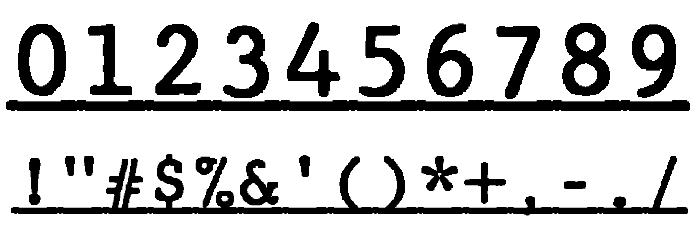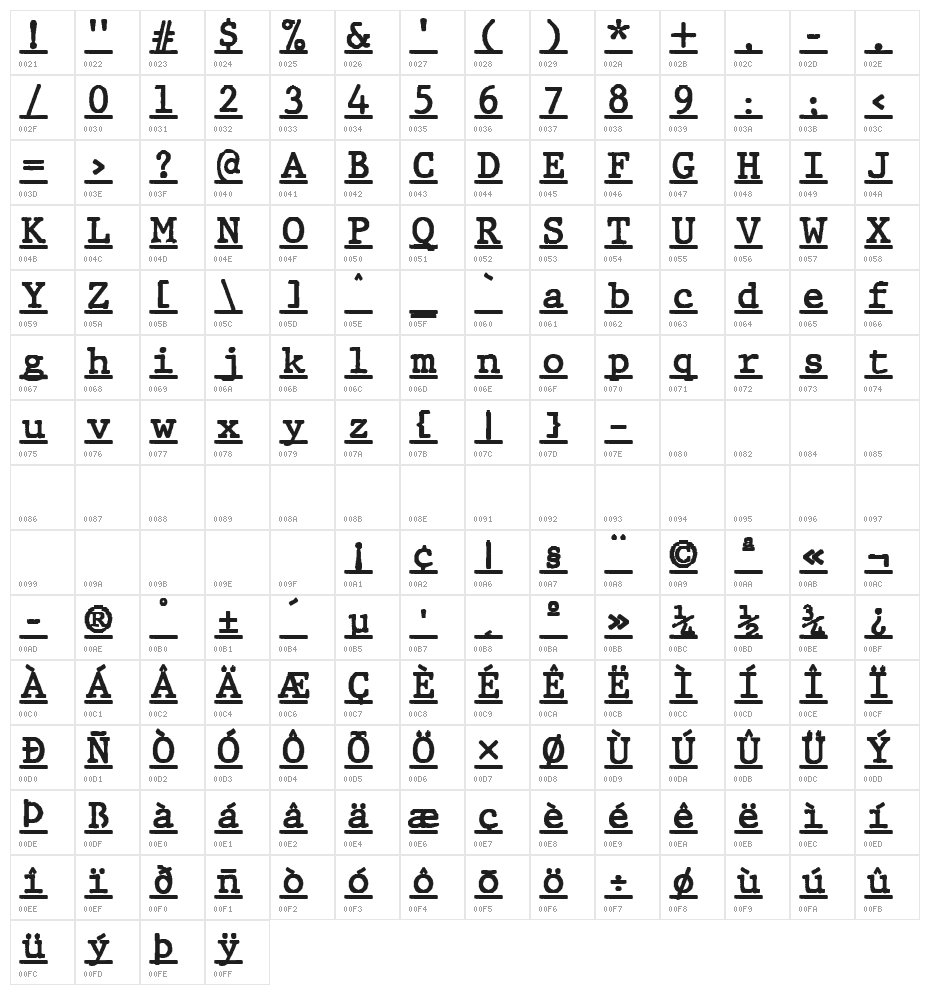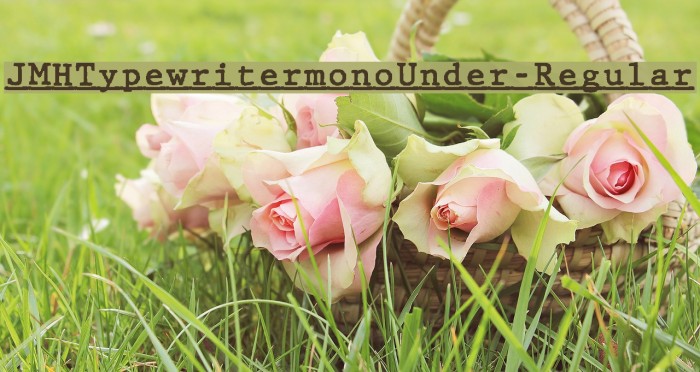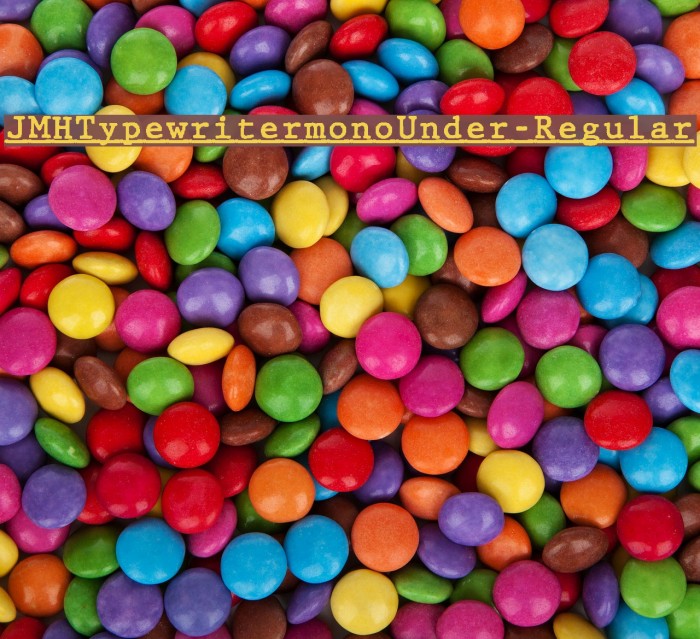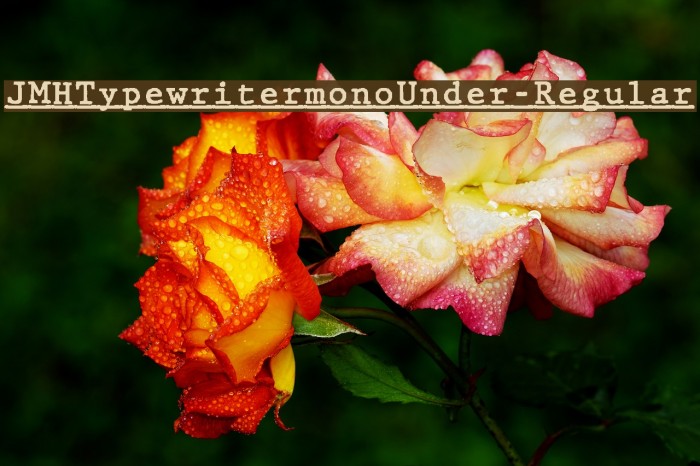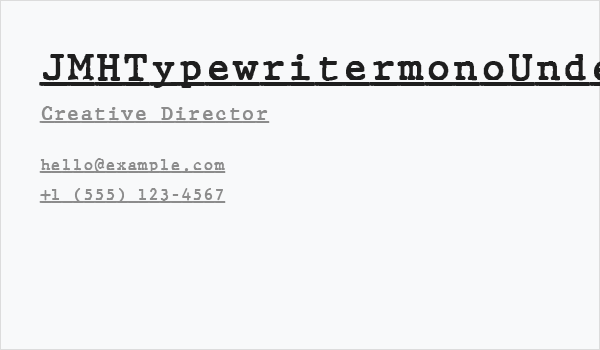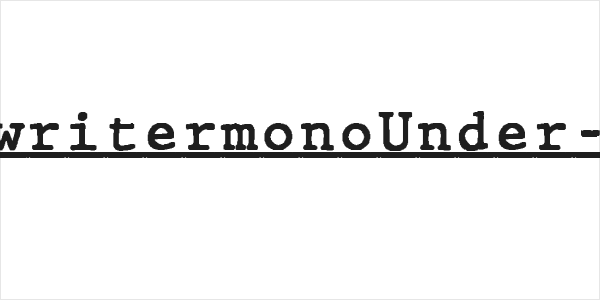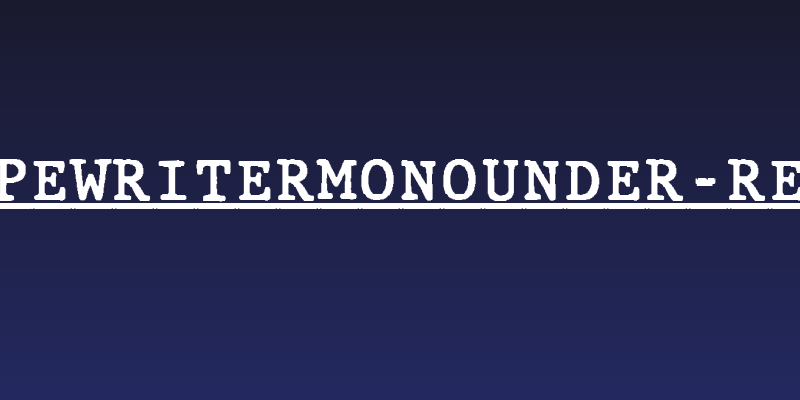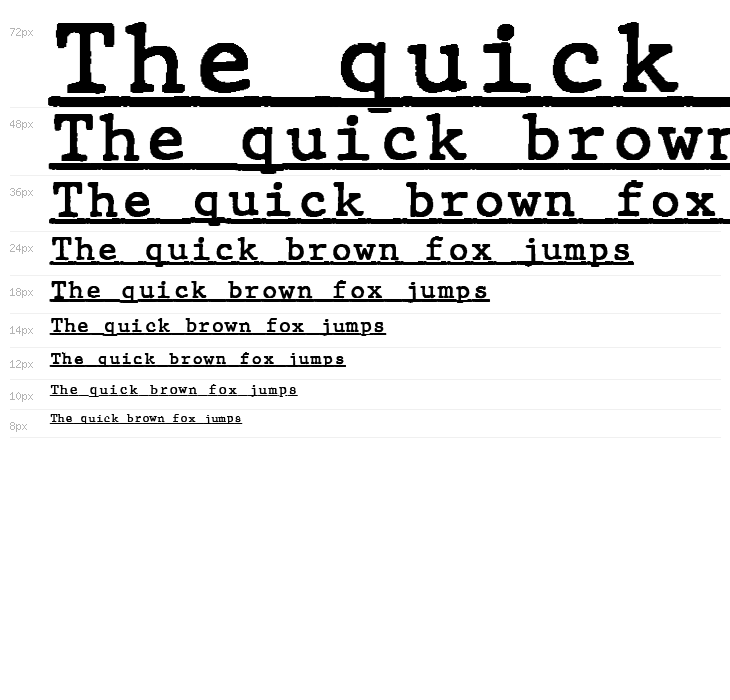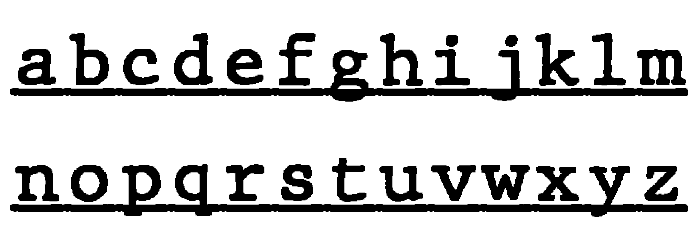
JMHTypewritermonoUnder-Regular Font
JMHTypewritermonoUnder-Regular Description
This typewriter-style font features a monospaced design, reminiscent of classic mechanical typewriters. Each character is evenly spaced, providing a uniform appearance that is both nostalgic and functional. The letters are bold with a slightly rough texture, adding to the vintage typewriter feel. The uppercase letters are prominent and well-defined, while the lowercase letters maintain a consistent height and width. Numbers and special characters are clear and legible, making this font suitable for a variety of applications. The overall aesthetic is both retro and practical, ideal for conveying a sense of authenticity and tradition.
| Use Case | Logos, Coding, Retro designs |
| Proposed Projects | Ideal for retro-themed designs, coding projects, typewriter art, and documents requiring a classic typewriter aesthetic. |